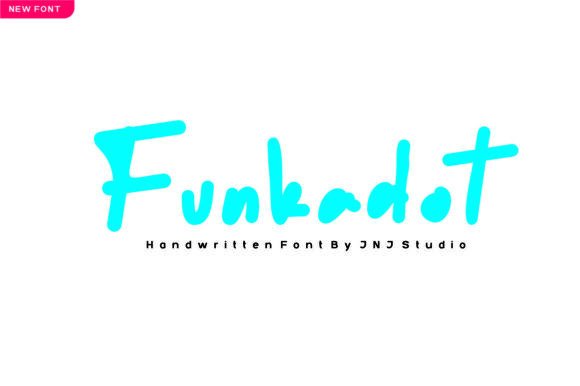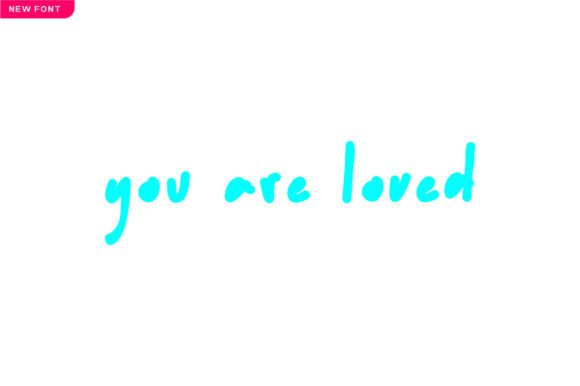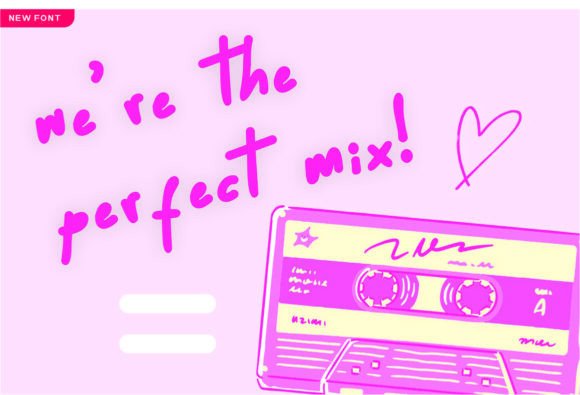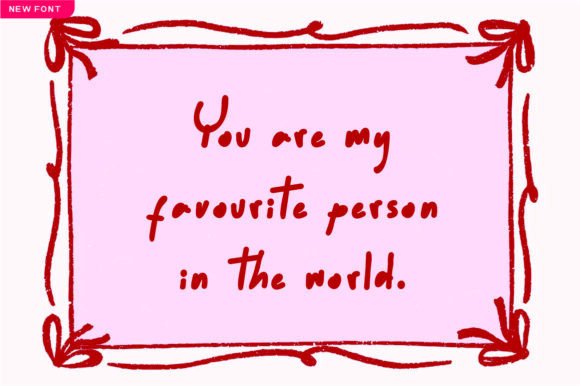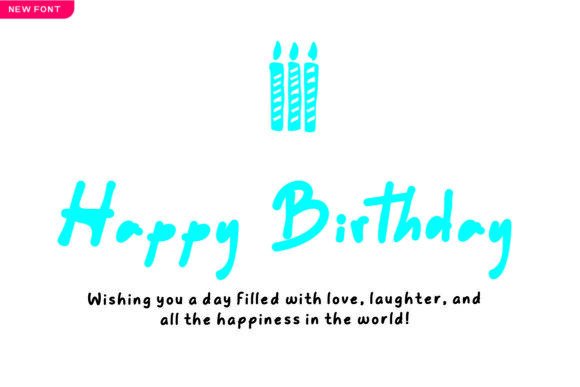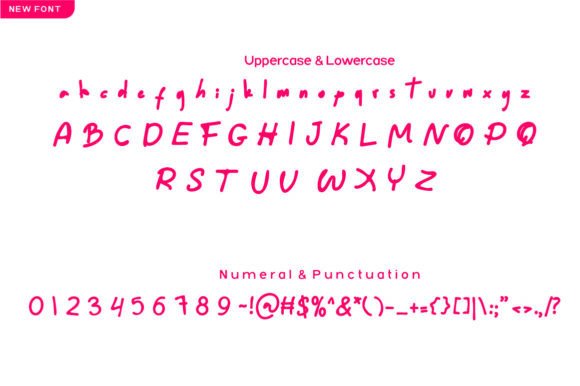
Introducing Funkadot Font: The Playful Handwritten Typeface with a Personal Touch
In the world of typography, few fonts manage to capture the essence of spontaneity and personality as effectively as Funkadot. This playful handwritten typeface is inspired by the casual doodles and expressive marker lettering that bring a touch of humanity to any design. With its smooth curves, lively dot accents, and organic flow, Funkadot is the perfect choice for designers and crafters looking to add a splash of character to their projects.
The Inspiration Behind Funkadot
Funkadot draws its inspiration from the imperfect, yet charming world of handwritten notes and casual doodles. The font’s creator sought to capture the rhythm of spontaneous pen strokes, translating the energy and movement of handwritten text into a digital format. The result is a typeface that feels both friendly and full of personality, perfect for designs that require a human touch.
Key Features of Funkadot Font
- Smooth Curves and Lively Dot Accents: Funkadot’s unique blend of smooth curves and lively dot accents gives the font its distinctive charm. The dots add a playful touch, while the curves provide a sense of fluidity and movement.
- Organic Flow and Imperfect Lines: The font’s organic flow and slightly imperfect lines give every word a natural, human touch. This makes Funkadot perfect for designs that require a personal and relatable feel.
- Rounded Terminals and Bouncy Baseline: The rounded terminals and bouncy baseline of Funkadot add warmth and movement to the font. This makes it ideal for creative branding, social media graphics, and cheerful headlines.
Use Cases for Funkadot Font
Funkadot is a highly versatile typeface that can be used in a variety of design projects. Here are some of the most popular use cases:
- Creative Branding: Funkadot is perfect for creative branding projects that require a playful and approachable feel. Use it to add a personal touch to your brand’s identity and make it stand out from the crowd.
- Social Media Graphics: The font’s lively and energetic feel makes it ideal for social media graphics, including Instagram posts, Facebook headers, and Twitter graphics.
- Packaging and Posters: Funkadot’s unique charm and character make it perfect for packaging and poster designs that require a touch of personality.
- Greeting Cards and Diary-Style Social Media Posts: The font’s handwritten feel makes it a fantastic choice for greeting cards and diary-style social media posts that require a human touch.
- Lifestyle Blog Headers: Funkadot is also perfect for lifestyle blog headers that require a playful and approachable feel.
Tips for Using Funkadot Font Effectively
To get the most out of Funkadot, here are some tips for using the font effectively:
- Pair it with Clean, Minimalist Backgrounds: Funkadot’s unique silhouettes shine when paired with clean, minimalist backgrounds. Use this combination to create designs that are both visually striking and easy to read.
- Experiment with Colors and Textures: Don’t be afraid to experiment with different colors and textures when using Funkadot. The font’s playful feel makes it perfect for designs that require a pop of color or a tactile texture.
- Use it to Add a Human Touch: Funkadot’s handwritten feel makes it perfect for designs that require a human touch. Use it to add a personal and relatable feel to your designs.
In conclusion, Funkadot is a playful handwritten typeface that captures the essence of spontaneity and personality. With its smooth curves, lively dot accents, and organic flow, it’s the perfect choice for designers and crafters looking to add a splash of character to their projects. Whether you’re working on creative branding, social media graphics, packaging, or posters, Funkadot is a fantastic choice. So why not give it a try and see how it can bring a touch of humanity to your designs?